To design a tattoo you will need to choice the desired graphic, symbols and typography – the last one plays a huge role in it.
Today we have gathered a collection of more as 35 tattoo fonts with style for our visitors where you can discover various styles and special font of your decision. These fonts are created by reputable designers and are in the best quality no matter it is premium or free font. Stay in style and enjoy!
Tattoo Fonts Collection
Monk Gothic (Free)
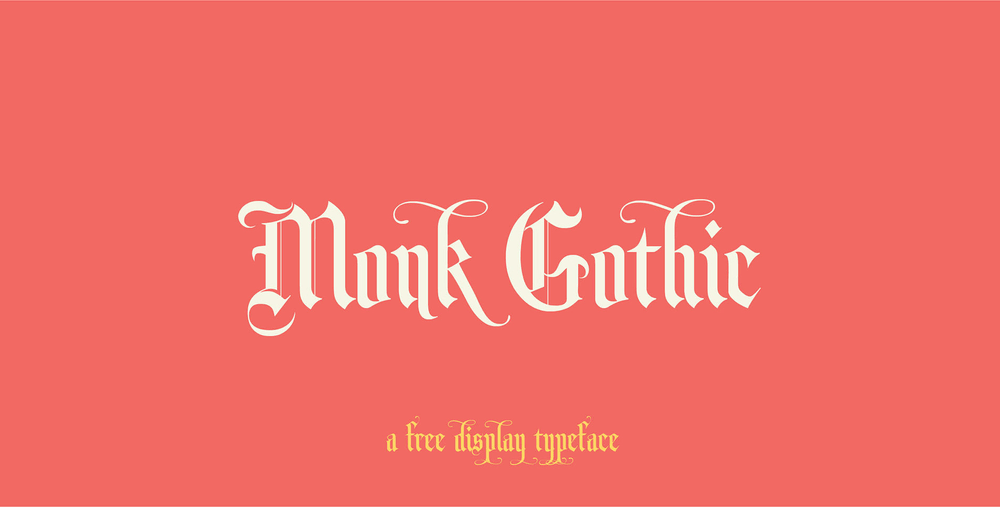
Awesome free gothic, ornamental calligraphic typeface for your perfect vintage design. It is perfect for logos, wedding invitations, greeting cards, flyers, posters etc.
Incognito
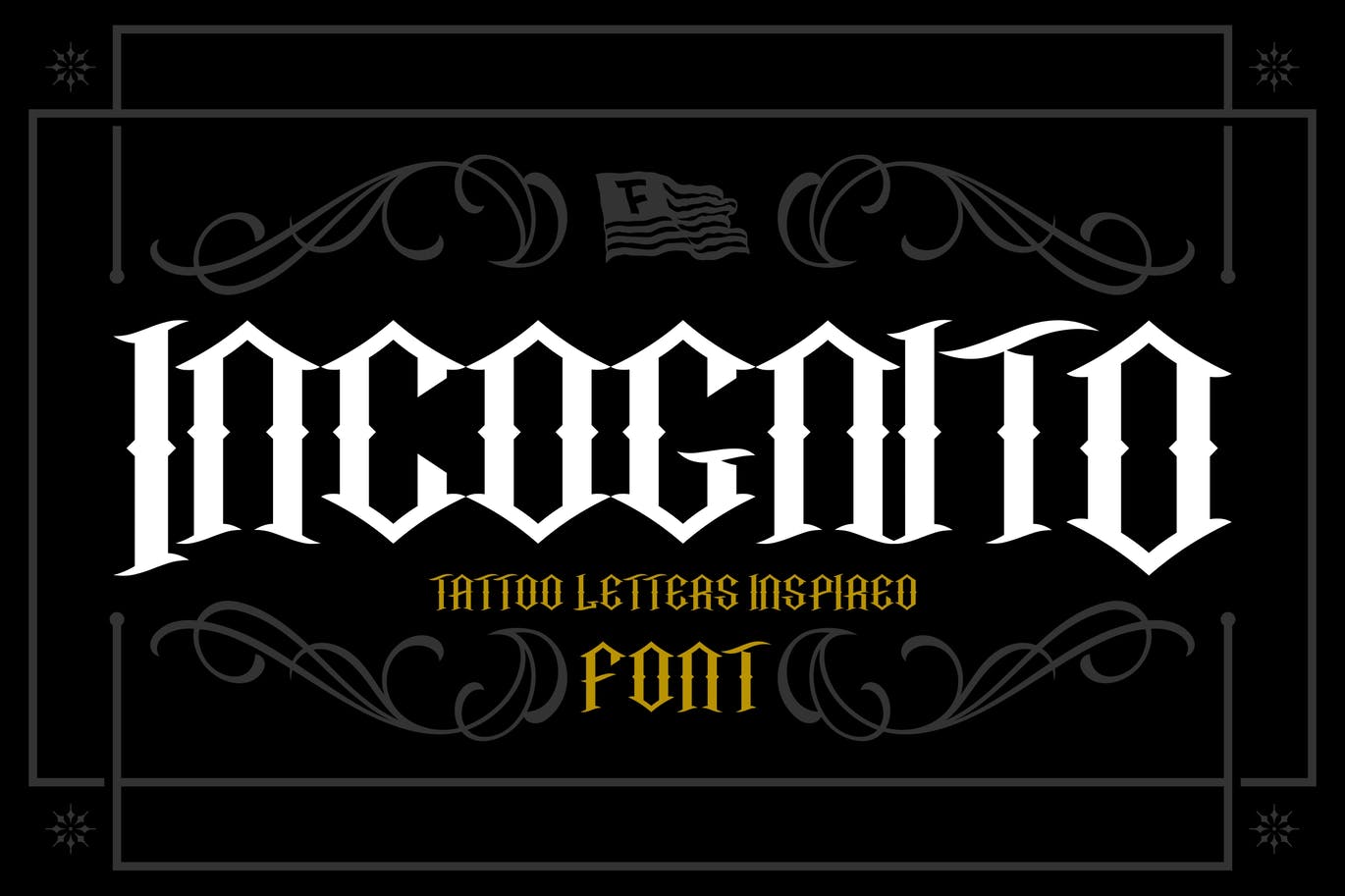
Classic blackletter font that are havily inspired by tattoo and kustom kulture. Suits best if you’re working on gothic, tribal, tattoo themed designs.
Avestrava Tattoo
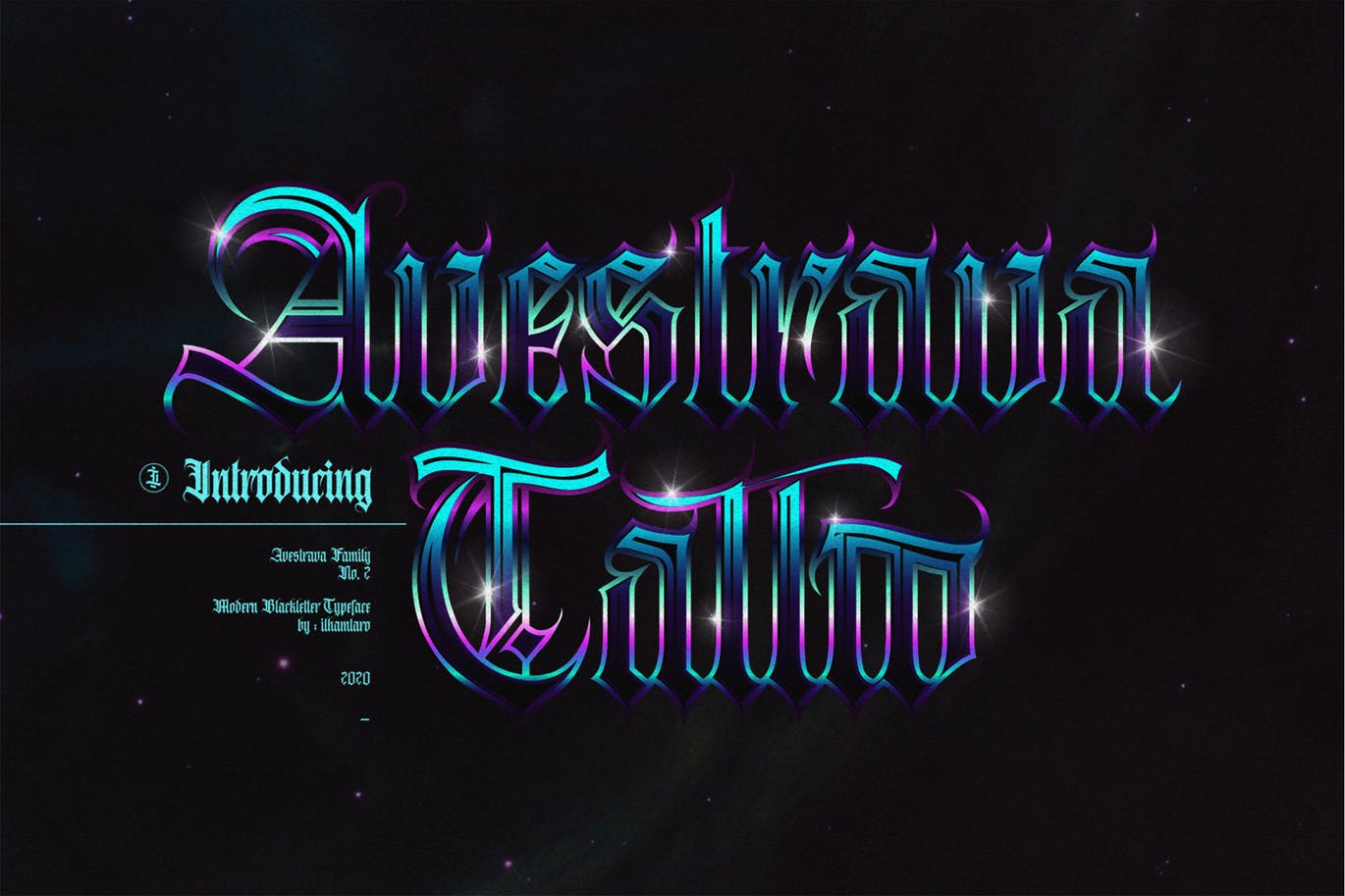
It is a family of letters from Avestrava. This time the tattoo style is more gothic as other fonts from same family. Perfect for tattoo salons, t-shirt, posters, flyers, stickers and etc.
The Lastring
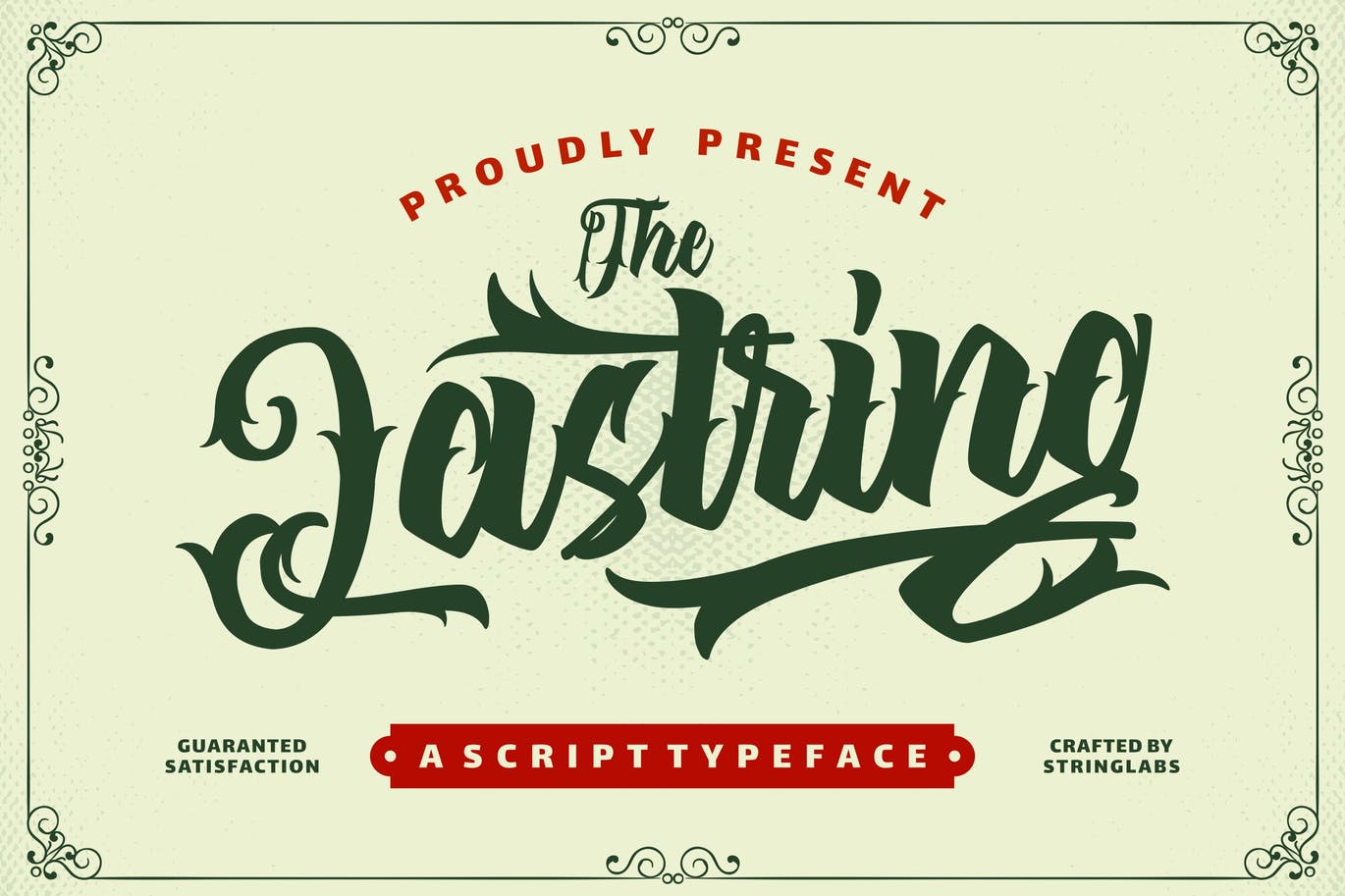
The Lastring is a script typeface with tattoo style, gothic style taste and combine with vintage and retro style. It is perfect if used for brands such as barbershops, motorcycle clubs, clothings, coffee shops, shoe brands, vapor shops, wine industry and etc.
Strong West
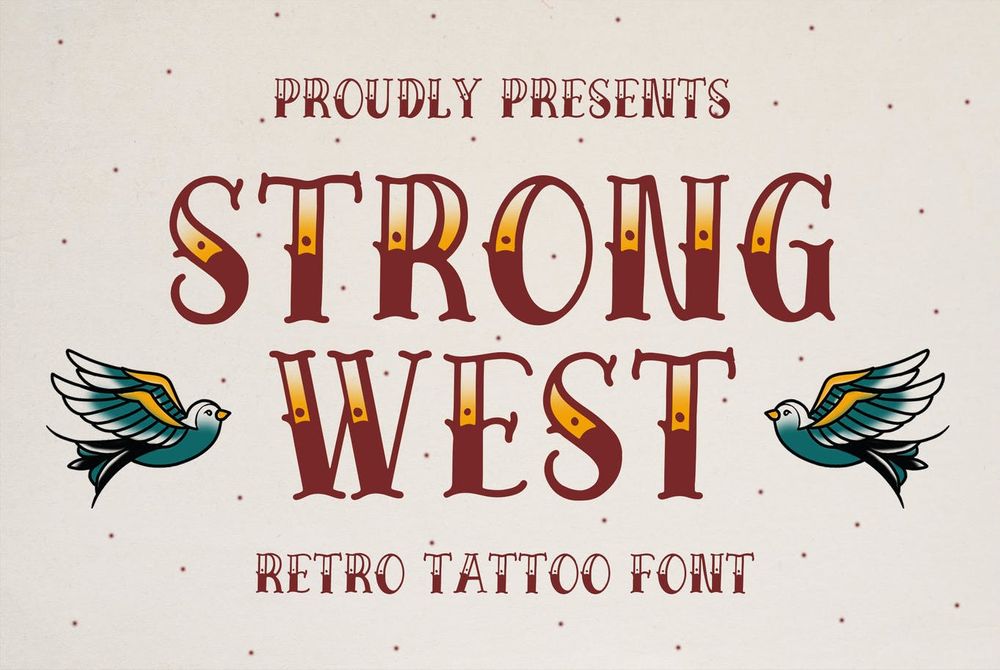
A new script font for your needs. It is best for logotypes, barbershops, badges, tattoo artist, tattoo merchandise, tattoo letters and etc.
inuTattoo Script
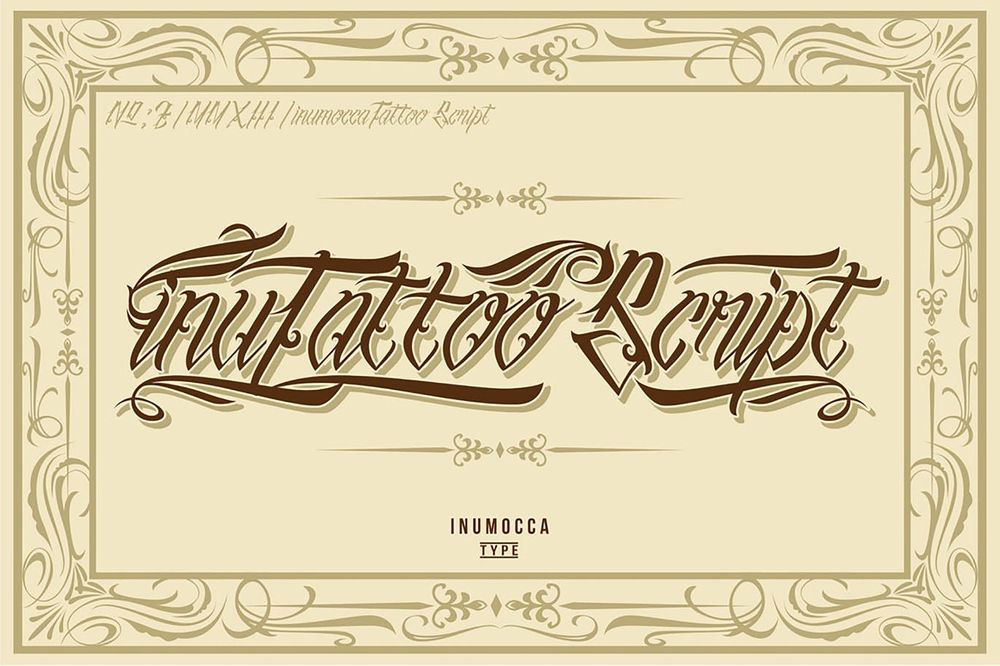
inuTattoo Script font was inspired from tattoo lettering with swirl tattoos. Perfect for tattoo salons, t-shirt designs, product designs, posters and etc.
Sabrva
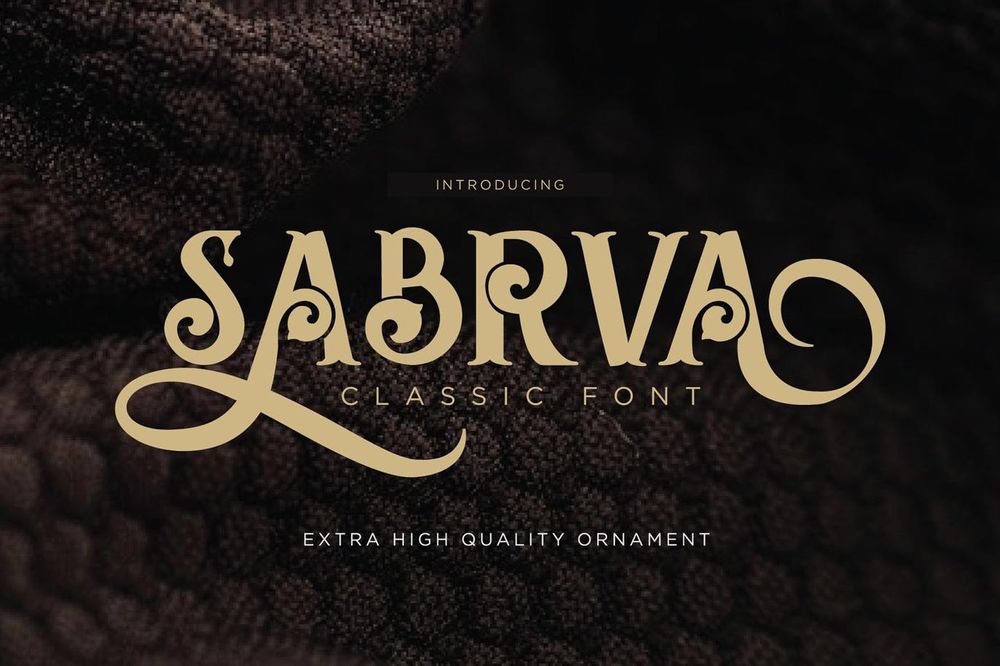
Give your typography design with a touch of classic style with Sabrva. Perfect for tattoo studios, t-shirt designs, posters, flyers, covers and etc.
Black Angela
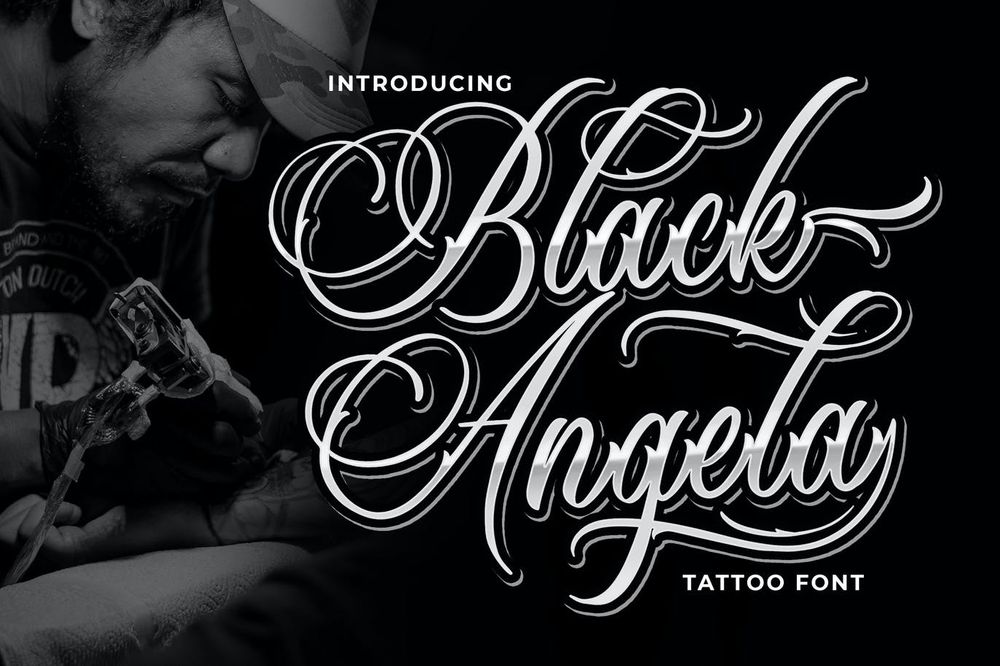
Black Angela inspired by lettering tattoo style. It came with open type features for logotypes, barbershops, badges, tattoo artists, tattoo merchandises, tattoo letters and etc.
Bandito
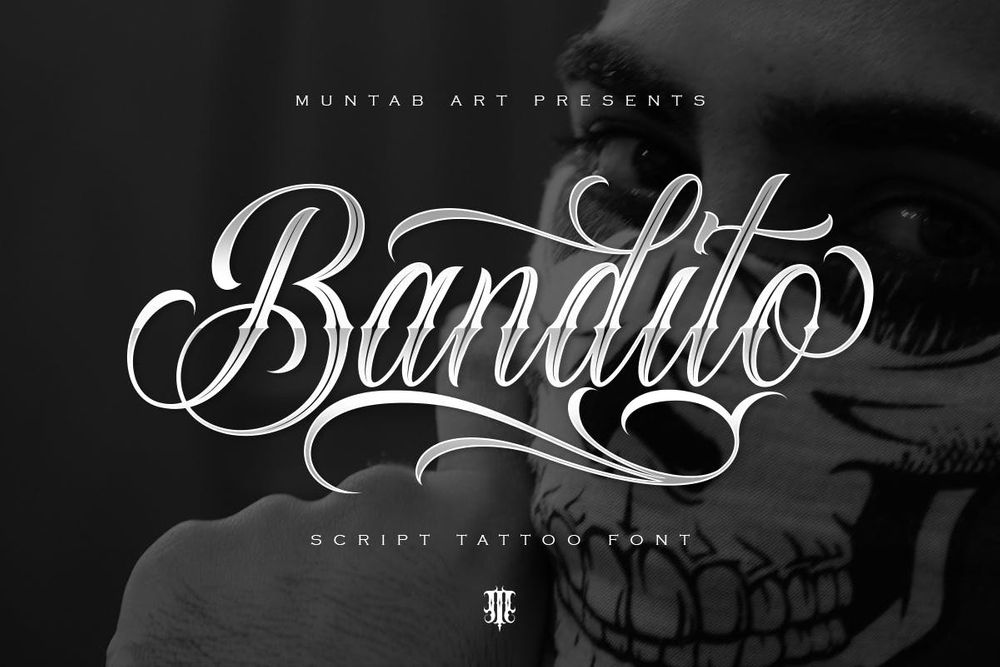
Bandito includes uppercase and lowercase letters, numerals, a large range of punctuation and ligatures. All lowercase letters include ending swashes and alternative font. Perfect for tattoo studios, t-shirt designs, labels, badges, letterings and etc.
El Piratos
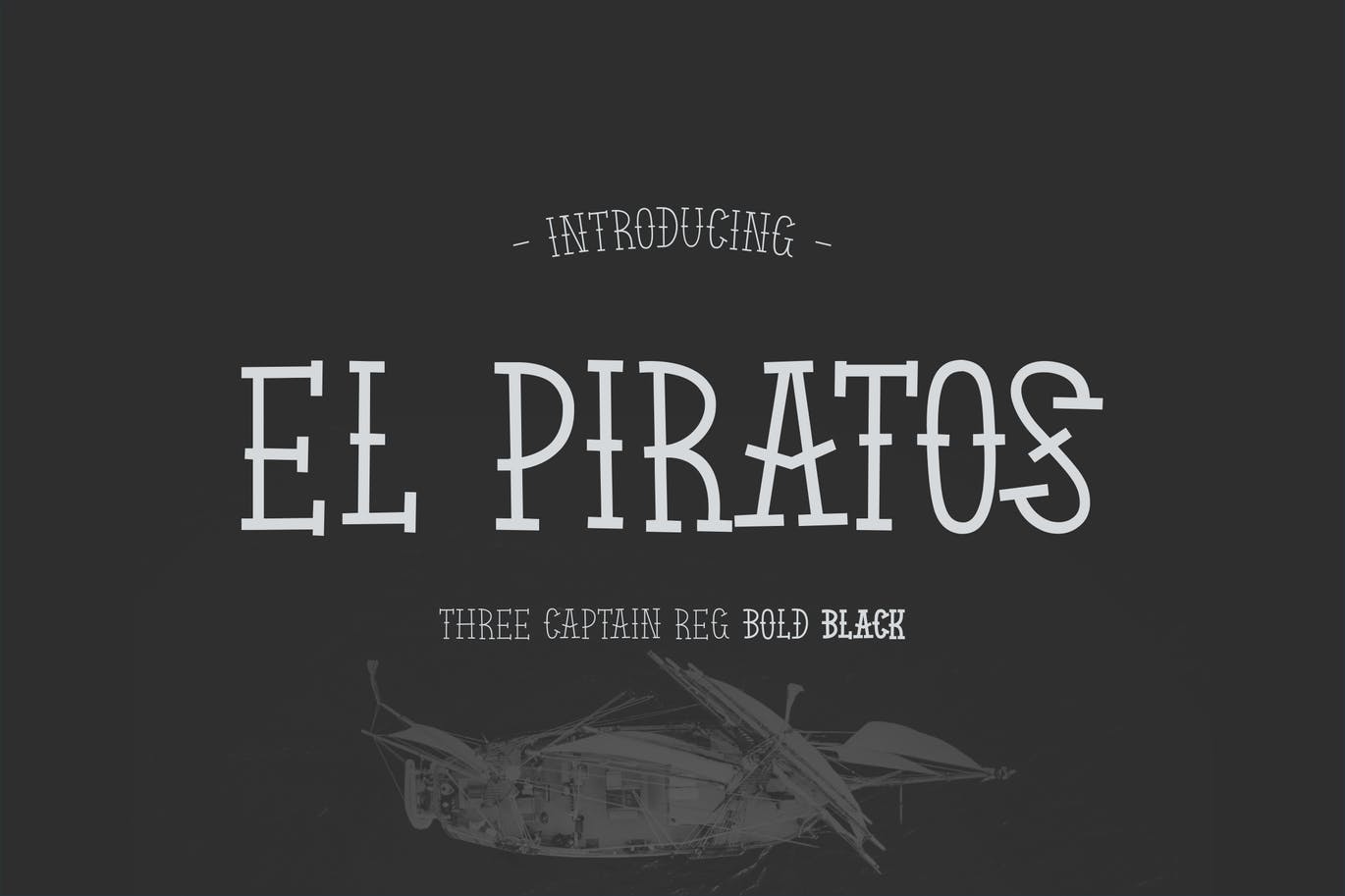
An all caps font with 3 weights, regular, bold, and black. This font suits well for tattoo studios, book covers, film tittles, covers, posters and etc.
Rumble Tattoos
This special tattoo typeface are ready for all your design needs. It is perfect for logotype tattoos, poster tattoos, merchandise tattoos and etc.
Rebel Bones (Free)
This font has a bold and a standard version, both of which serve to recreate classic biker designs. Perfect for tattoo salons, posters, covers, decorative packaging and etc.
Mom Font (Free)
Inspired by old-school lettering, this font are well using by retro tattoo lovers. Perfect for tattoo studios, decorative lettering, vintage designs, packaging and etc.
Starella (Free)
Angilla (Free)
Young Heart (Free)
Young Heart is an attractive tattoo font you can use for free with personal and commercial projects. Perfect for labels, badges, posters, tattoo studios, covers and etc.
Afterkilly (Free)
Free blackletter font you can use with your personal projects. This font comes with a unique design that’s ideal for making posters, labels, tattoos and etc.
Rowan & Royal (Free)
It is a unique free blackletter font features 5 different styles – regular, rough, round, stencil and brush. Use it to create trendy apparel, logos, posters, social media and other projects.
Shanthika (Free)
It is a beautiful free script font that also features an elegant tattoo-like character design. It’s best for designing awesome tattoo-style designs for modern brands.
Ropstone (Free)
It is a handmade font inspired by classic posters. Bring up your vintage passion with this font. Thos font will be perfect for usage in comics, posters, magazines, logos, product packaging, tattoo salons and etc.
Puerto
A new font inspired by text on tattoo art. Great for branding, logos, posters, layers, brochures, advertisements, tattoo studios and more.
Versatile vintage serif font includes many different glyphs and uppercase letters. This font is great on food and beverage, alcohol and apparel, tattoo studios and etc.
Bughelds
A blackletter font that i’ve made with a personality touch. They works perfect for you who needs for headlines, logotypes, apparels, branding, packaging, tattoo studios and etc.
Cal Fraktur Modern
It is one of the calligraphic group of fonts called “21 Calligraphic font collection“. This font is ideal for calligraphic sketches, tattoos or for imitation of ancient manuscripts.